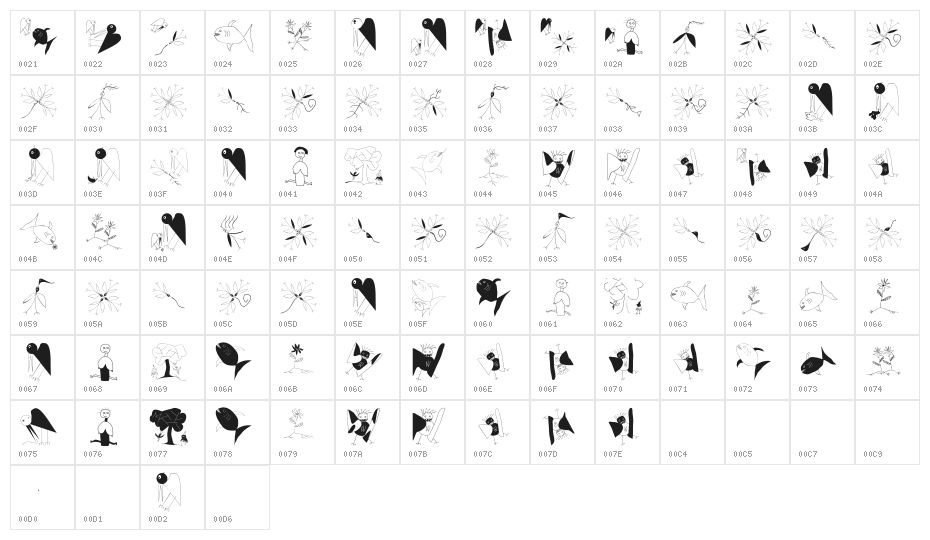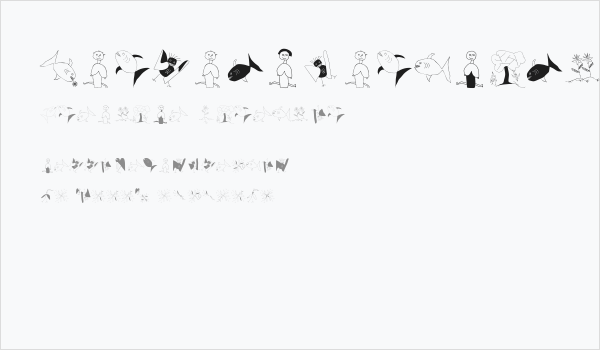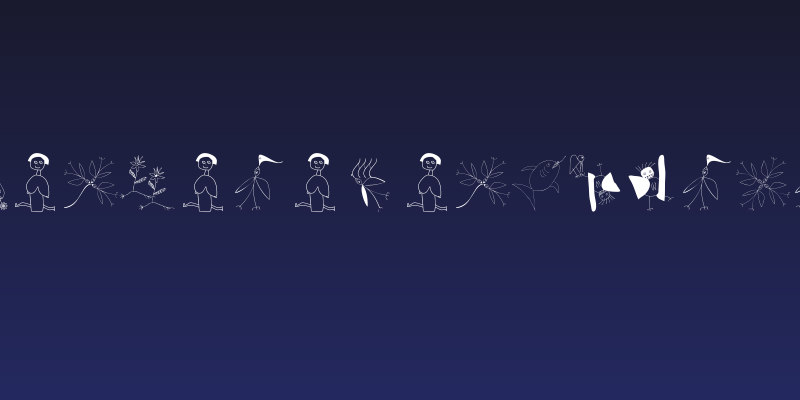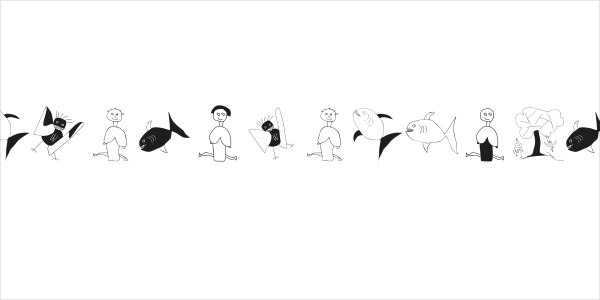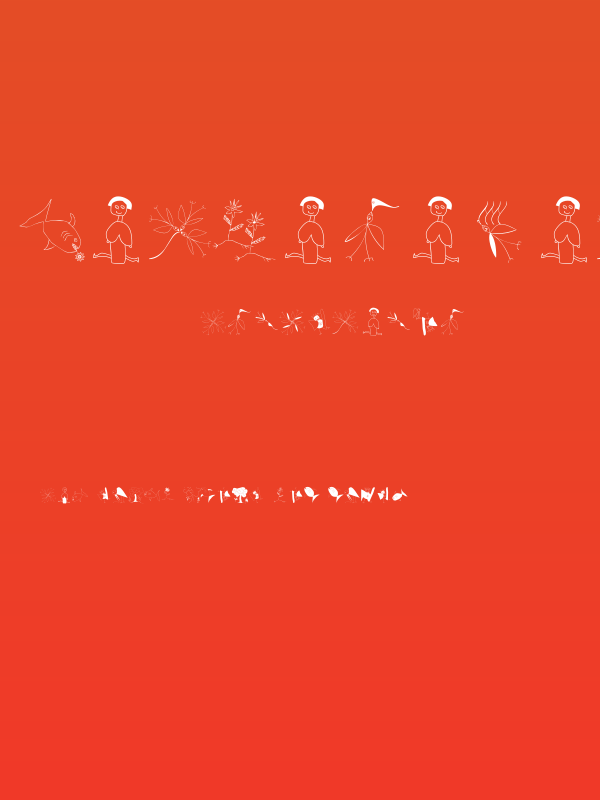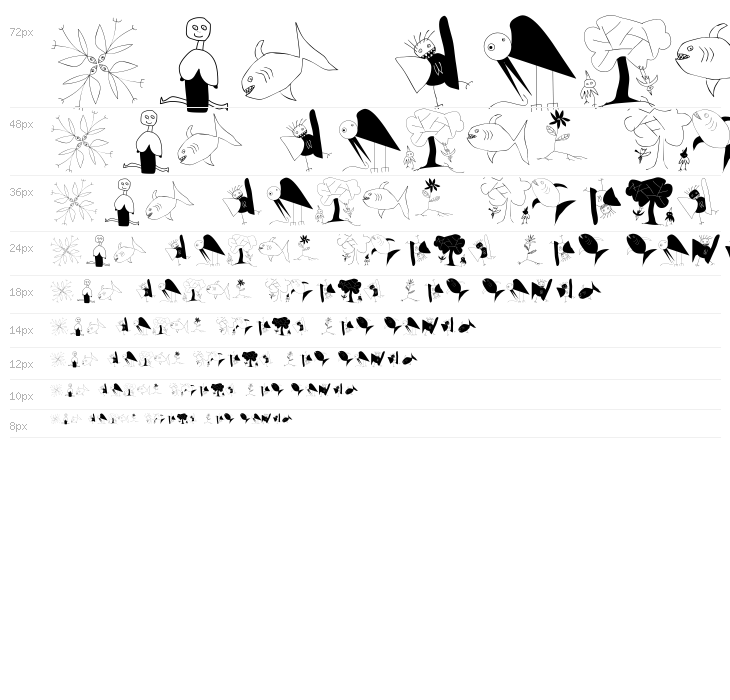
KarlasAnarchists Font
KarlasAnarchists Description
This is not a traditional font but rather a collection of whimsical, illustrative characters. Each character is represented by a unique drawing, featuring playful and abstract designs that resemble a mix of animals, plants, and human figures. The style is highly decorative and artistic, with a hand-drawn quality that gives each character a distinct personality. The illustrations are primarily black and white, with some elements filled in solid black, creating a striking contrast. This set is more suited for creative and artistic projects rather than conventional text display.
| Use Case | Artistic projects, illustrations, creative branding. |
| Proposed Projects | Ideal for creative projects such as children's books, art prints, or unique branding elements. |